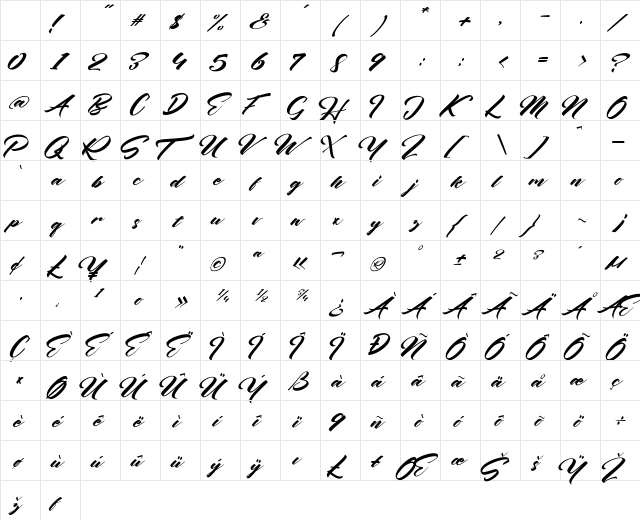
Complete Seinna Grace Demo Version Regular glyph index. Displaying only characters natively supported by Seinna Grace Demo Version Regular font.
Seinna Grace Demo Version is a composed and adaptable typeface that performs quietly and consistently across a wide range of design contexts.